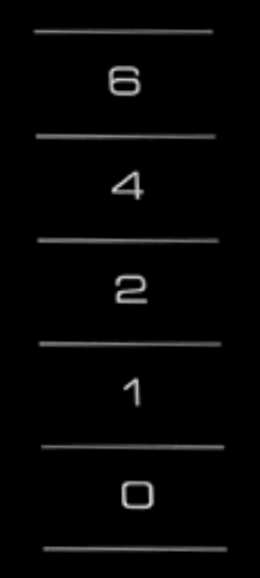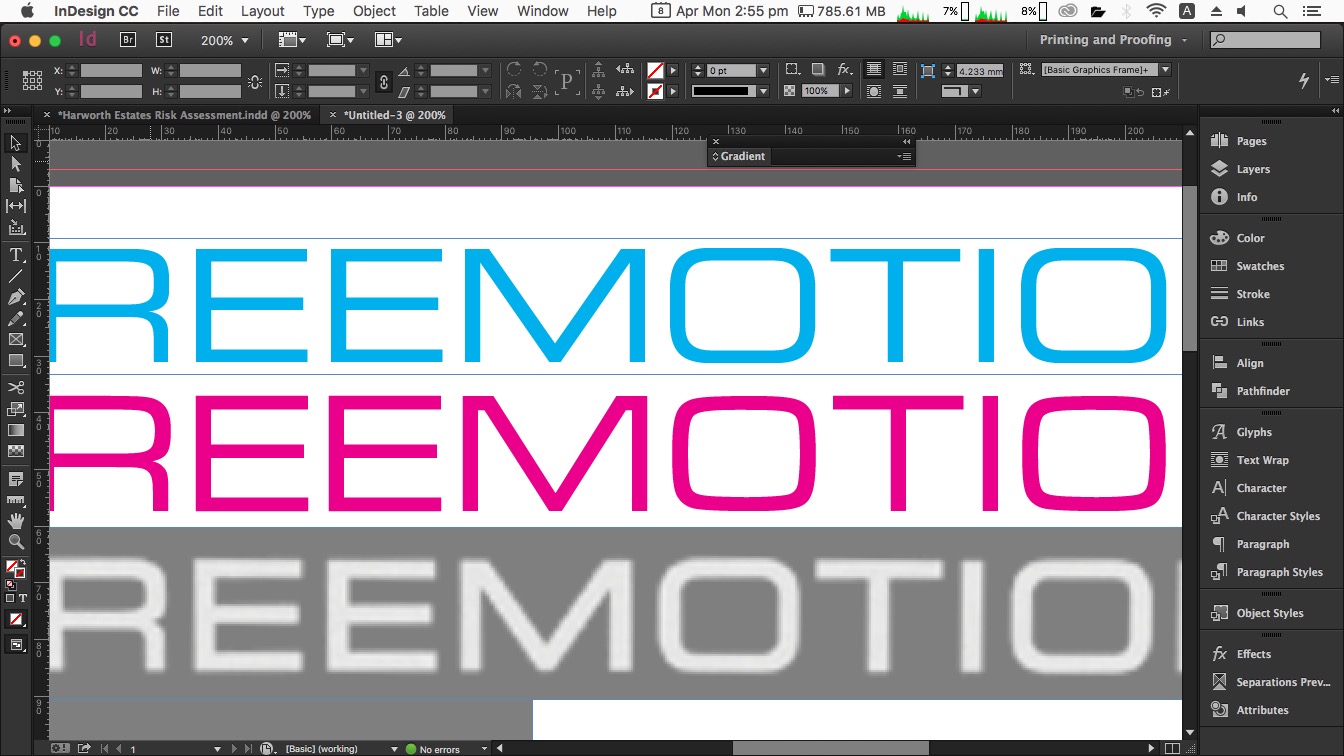
Hi, Does anyone know what font this is? Here’s a couple different samples
Scroll down to see the example. ![]()
Looks like Eurostile 2.
It looks like Micogramma Medium
I have used both Eurostile and Microgramma and have never noticed much difference between them, so I did a side by side comparison. Most characters are identical but I noticed one difference; in the ‘M’ on the underside of the two upper points, Microgramma (magenta) has a flat section whereas Eurostile (cyan) has a point. The OP’s example is definitely not Microgramma although it could be used as a close substitute.